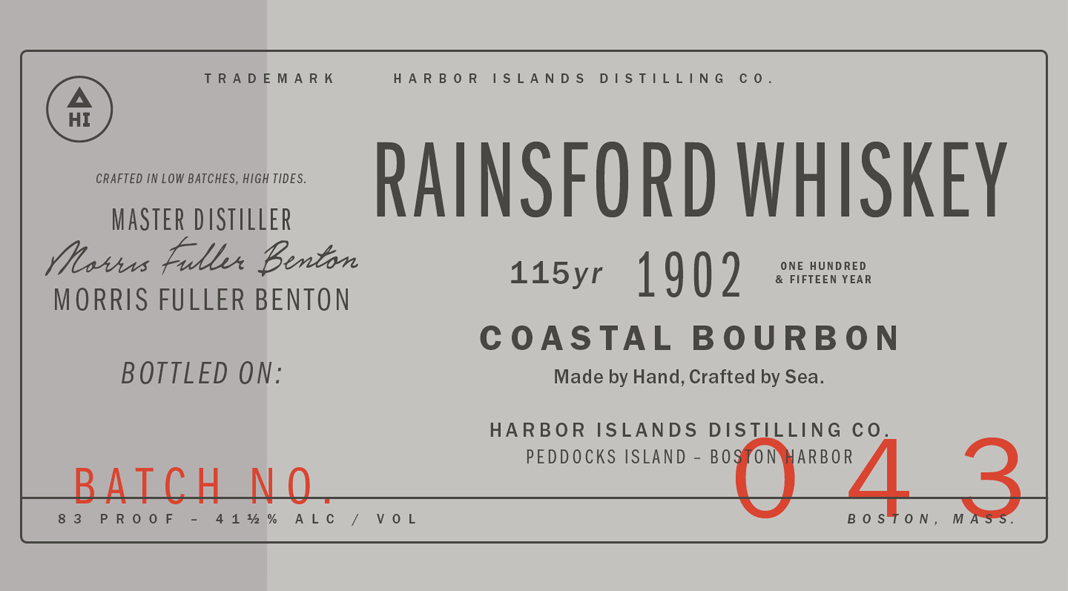
ITC Franklin Gothic, a sans-serif font family with a true American spirit.
Published in 2010 by type foundry ITC, the ITC Franklin Gothic font family is a remake of the original Franklin Gothic that first appeared in 1902. The new family is well suited for web content as well as small screens, billboards, and display ads. This successful remake masterfully retains the distinctive personality of the original typeface with only small changes in x-height and character width. This font family is bringing the strength and vitality of early American sans serif typefaces to the 21st century.
While the family is actually intended for display use in extra large letters, it’s also a good choice for short text sections even in smaller sizes. ITC Franklin Gothic can be easily combined with old style or slab serif typeface. Its capitals are wide and the lowercase letters share the typical proportions of serif typefaces. The family is available as a suite of OpenType® Pro fonts. It allows the use of the design while taking advantage of advanced typographic capabilities. For additional information on all features, just click on the following link.